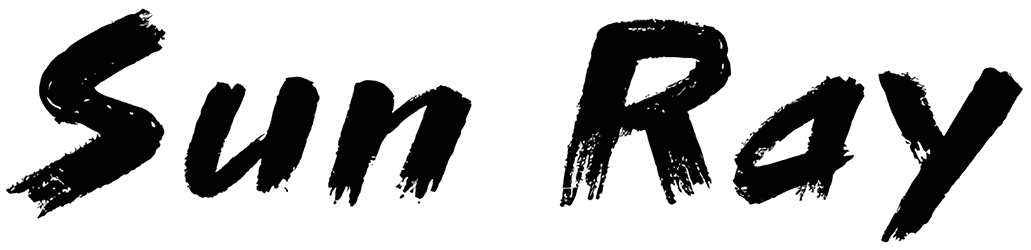
Sun Ray Font
Designed byBLKBK Fonts
Sun Ray is a script font that comes with tilted and crocked characters, so brings a minimalistic touch to your creative ideas such as digital banners, social media posts, brochures, product labels, and billboards. This brush font can establish a sense of art, precision, delicacy, and dynamic, thus you can make the strongest impact on the audience.